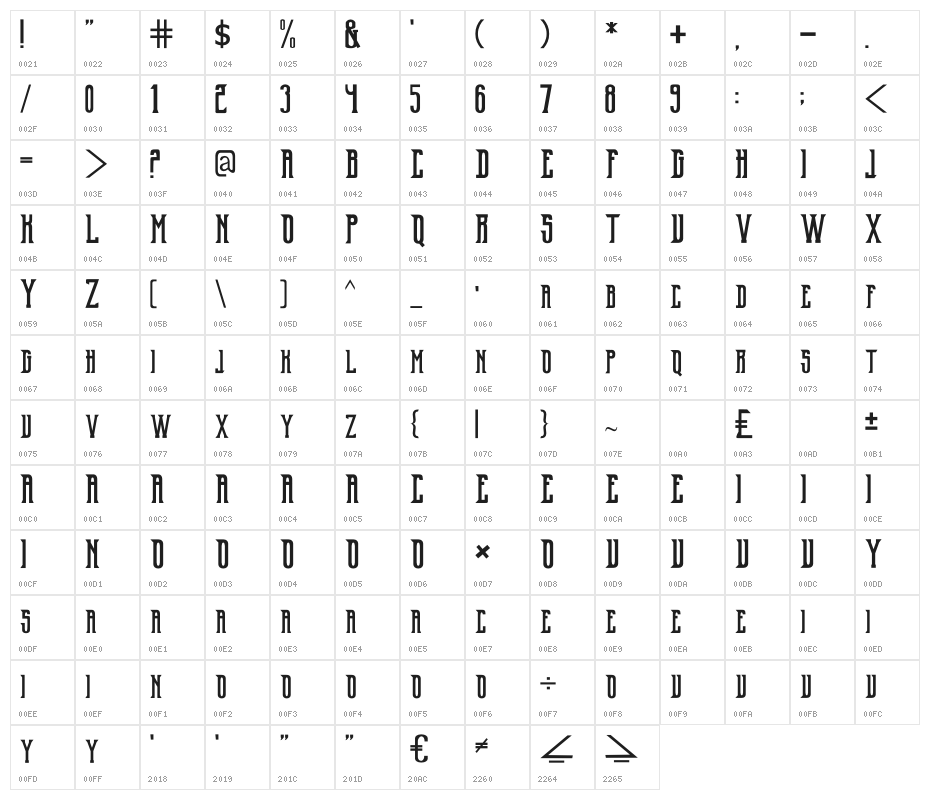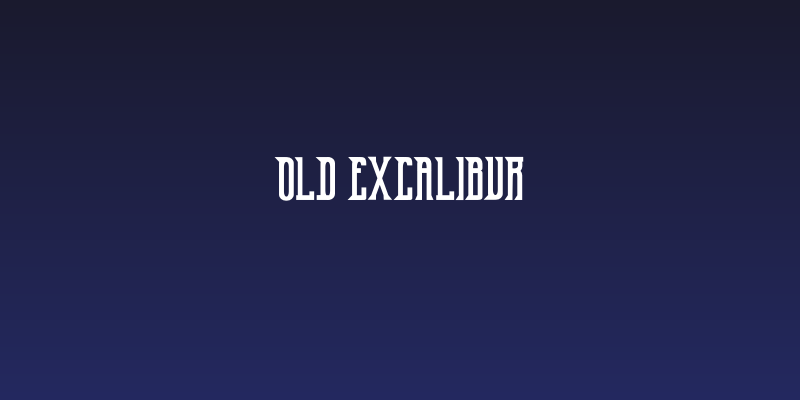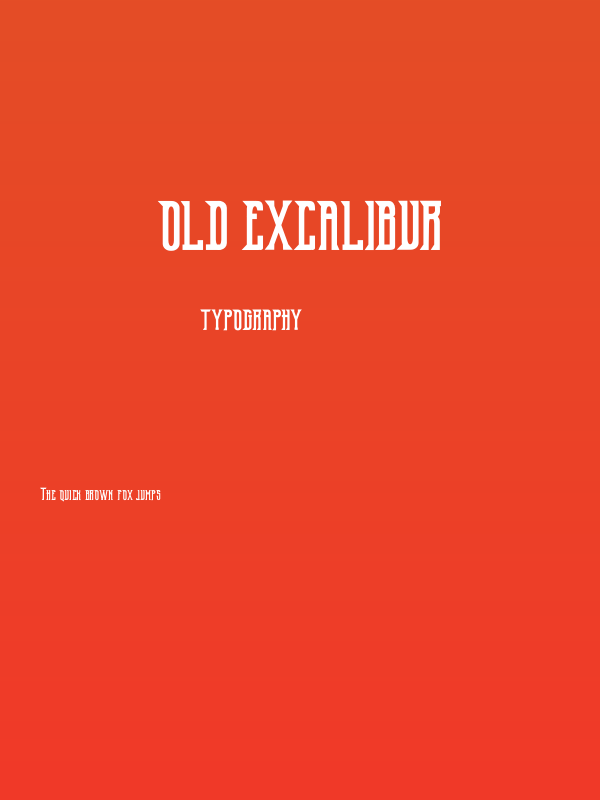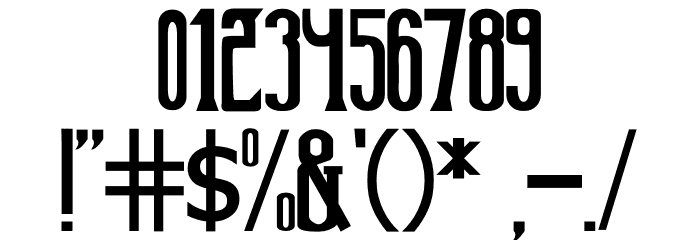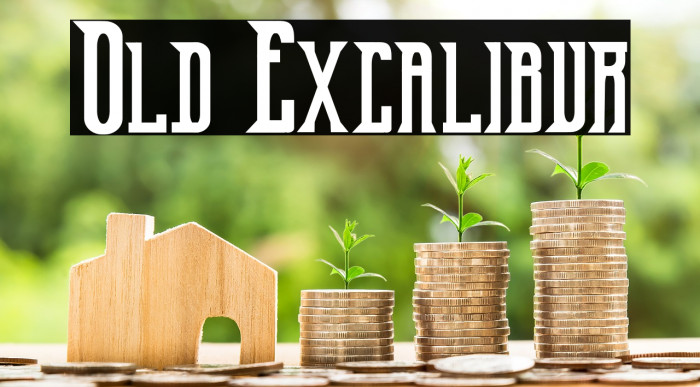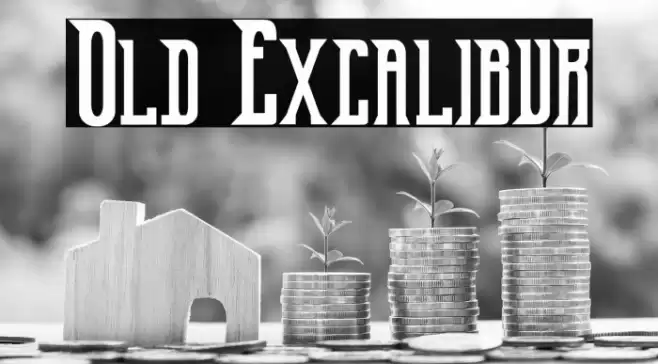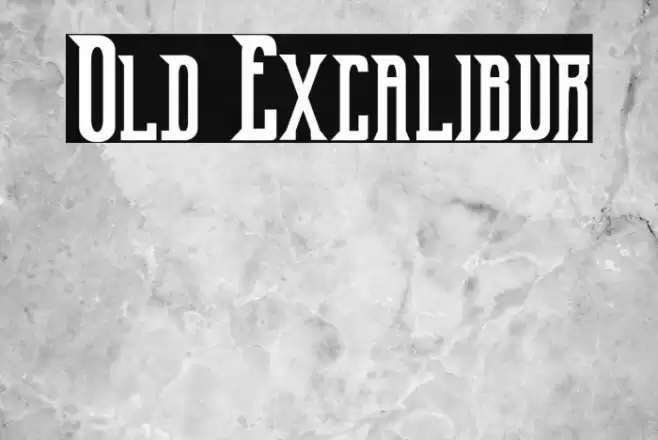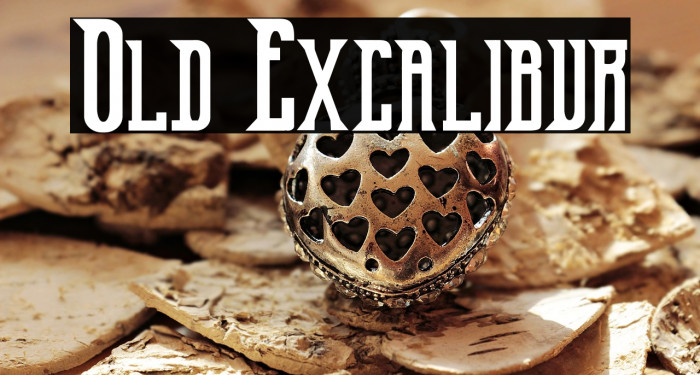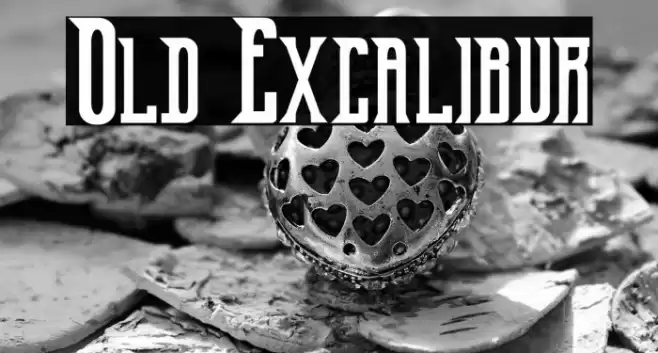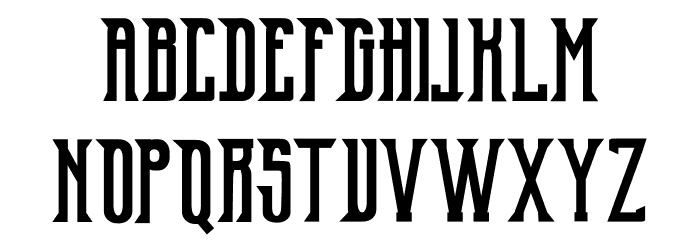
Old Excalibur Font
| Progetti proposti | Ideal for projects requiring a historical or fantasy theme, such as book covers, posters, or themed event invitations. |